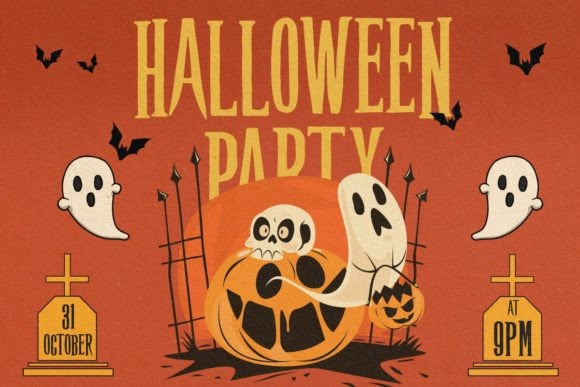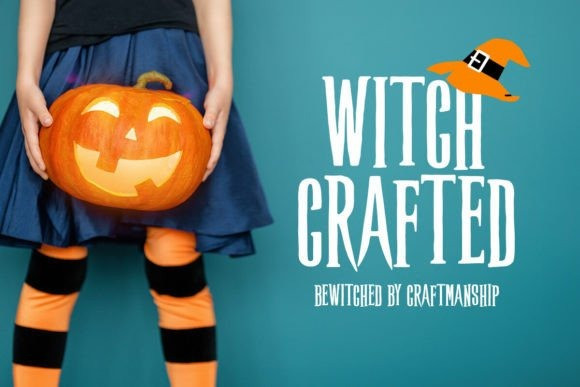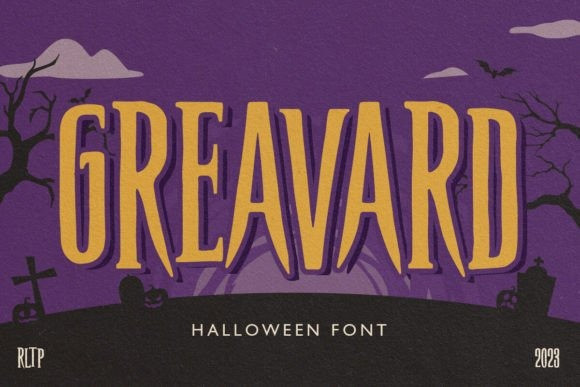
Greavard Font
Greavard Font is perfect for creating spine-tingling posters, invitations, and more. But that’s not all – when you purchase “Greavard,” you’ll also receive a bonus of 15 high-quality 3D Halloween-themed objects in PNG format. From creepy pumpkins to ghostly lanterns, these extras will take your designs to the next level. Unleash your inner Halloween spirit with “Greavard” and craft bewitching designs that leave a lasting impression. Don’t miss out on this limited-time offer; grab “Greavard” today and let your creativity run wild in the shadows.